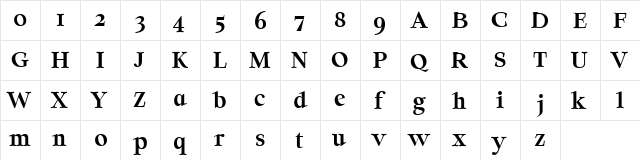
Solomon Semi Demo Regular
Design Context for Solomon Semi Demo Typeface
Solomon Semi Demo takes a measured approach to typography — its balanced proportions and neutral character make it a reliable workhorse for both digital and print work.